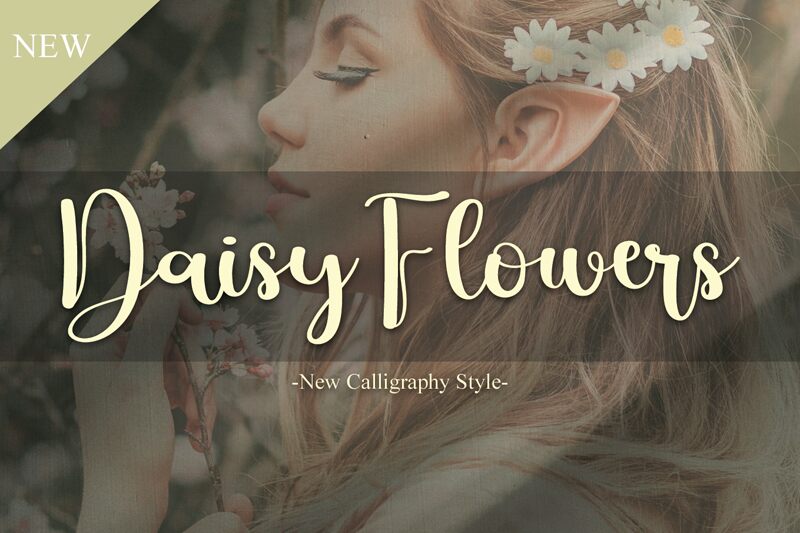
Daisy Flowers
Daisy Flowers is a stunning calligraphy font designed by Fana Merah Jambu that exudes elegance and grace. This semi-light font features beautiful, flowing strokes that resemble the petals of a daisy. Perfect for wedding invitations, greeting cards, and branding materials, Daisy Flowers adds a touch of sophistication to any project. Its delicate curves and intricate details make it ideal for designs with a feminine touch or those that require an air of romance. Whether you're designing an elegant logo or creating stunning social media graphics, Daisy Flowers is the perfect choice for your next project!